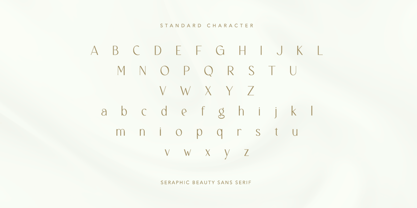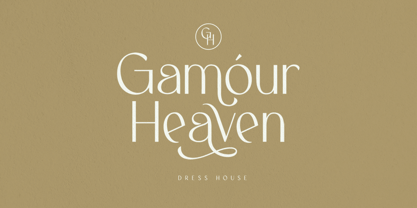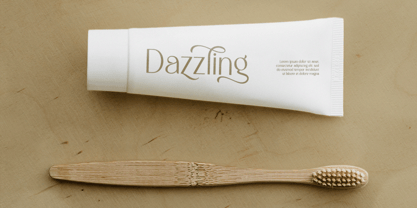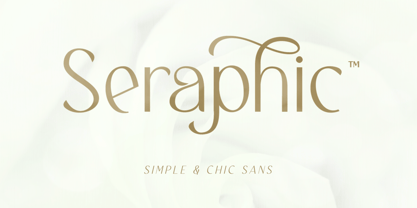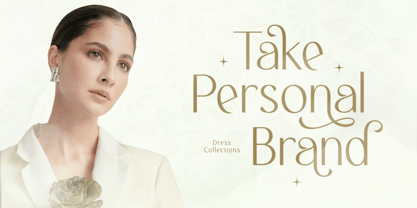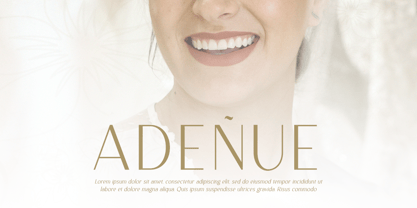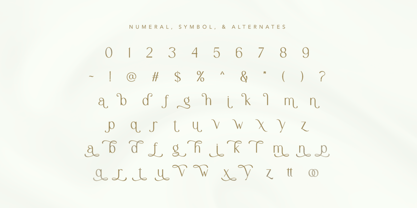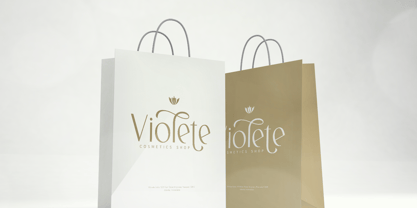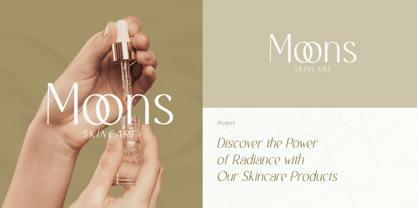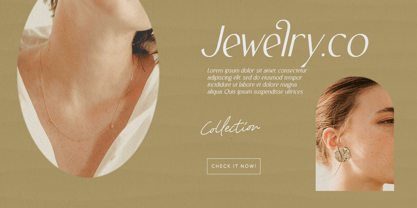
Seraphic
The Seraphic Font Family was designed by Sarid Ezra, Dzikrul Aulia and published by Bale Type. Seraphic contains 2 styles and family package options. More about this family
Seraphic is a simple and chic sans-serif font with alternates and ligatures that combines clean and minimalist design elements with subtle stylistic variations and enhanced typographic features. It aims to strike a balance between elegance and simplicity, making it suitable for a wide range of design purposes. The addition of alternates and ligatures provides designers with creative options to customize the typography and add subtle variations, making it a go-to choice for projects that require a simple yet elegant look. You can use this font for wedding, logo, branding, etc. This font also support multilingual.